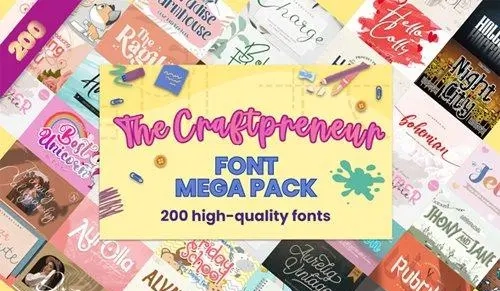
The Craftpreneur Mega Pack – 200 Premium Fonts
The Craftpreneur Mega Pack offers a diverse collection of 200 premium fonts, perfect for various design projects. Whether you’re working on branding, logos, web design, or print materials, this extensive font library has you covered.
• 200 unique font styles
• Includes script, serif, sans-serif, and display fonts
• Multiple weights and styles available for each font
Each font in this pack is crafted with precision, ensuring optimal legibility and aesthetic appeal. The variety of styles allows for creative flexibility, making it suitable for both personal and professional use.